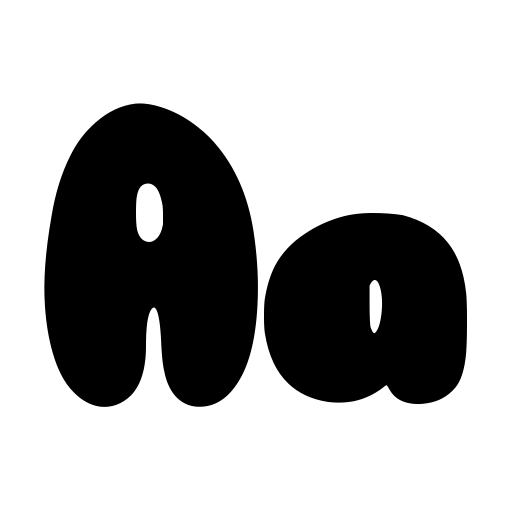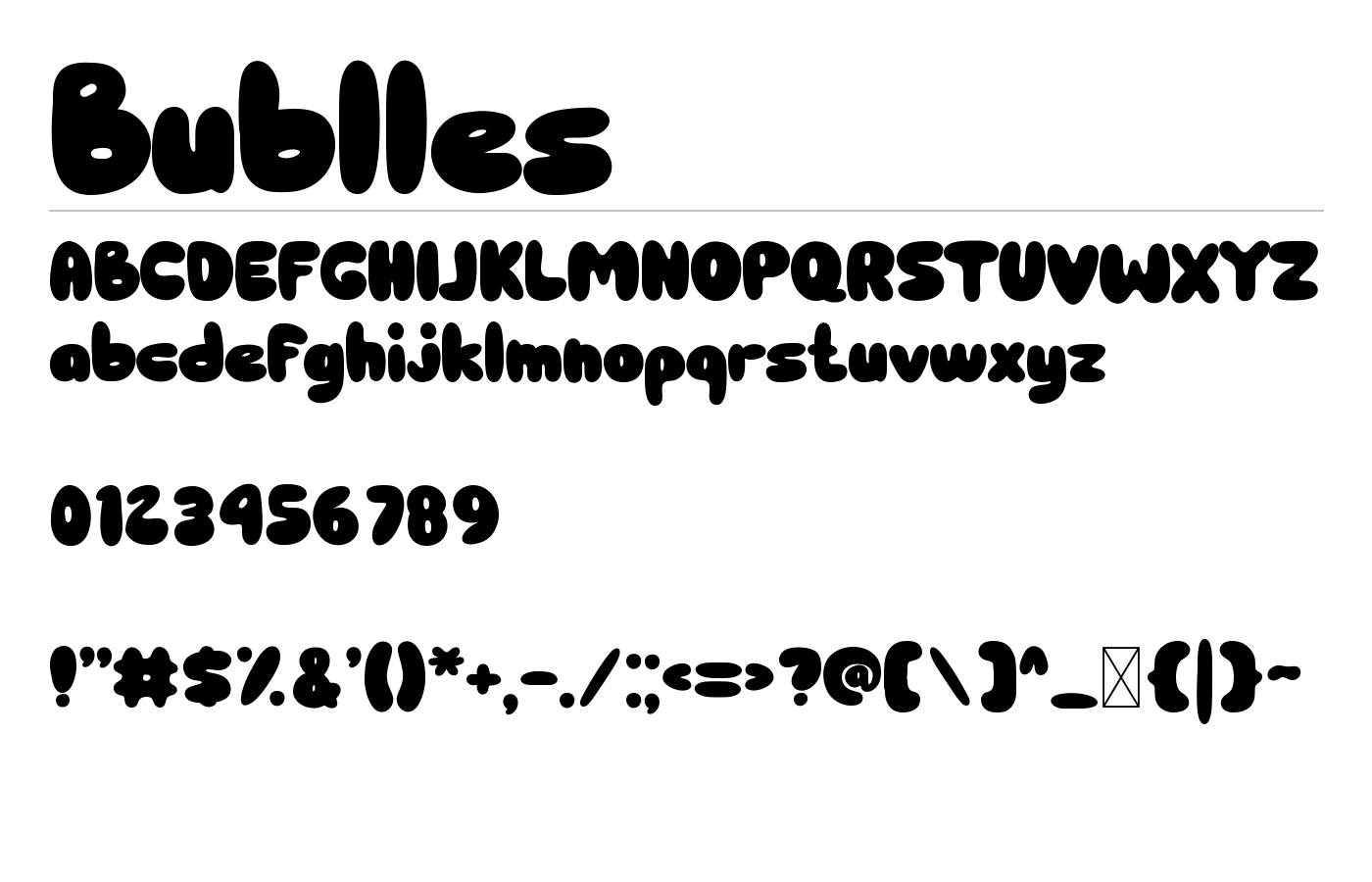
Bublles Font is a playful, bold sans-serif typeface with rounded, bubbly shapes that create a fun and approachable feel. Its thick strokes and generous spacing make it perfect for attention-grabbing headlines, kids’ materials, and casual branding that aim to convey friendliness and cheerfulness. This font works best in creative, informal contexts where a lively and lighthearted personality is desired.
Bublles Font